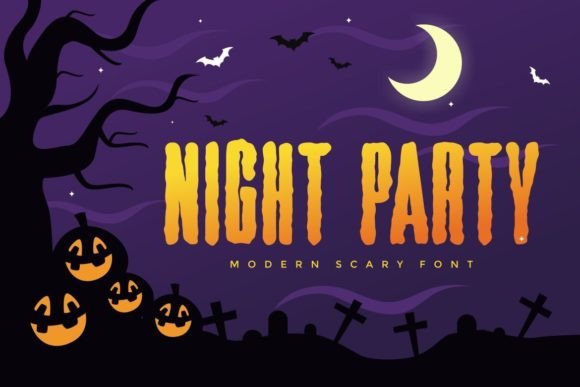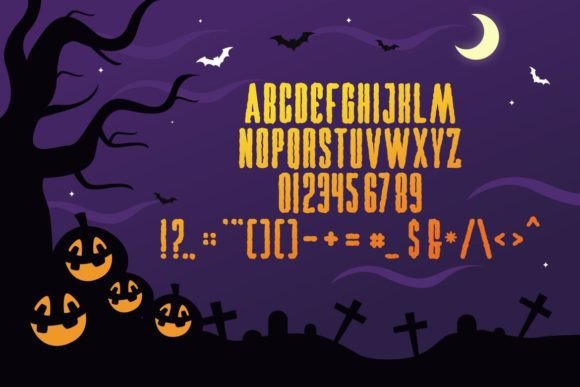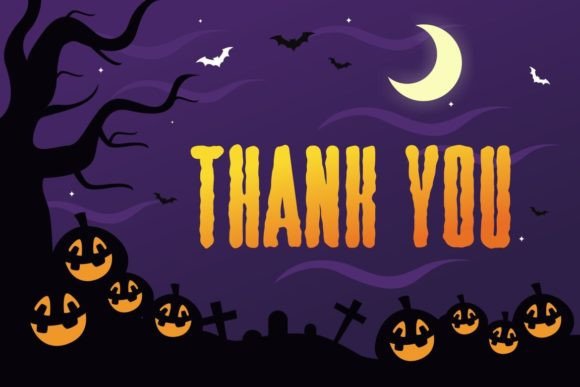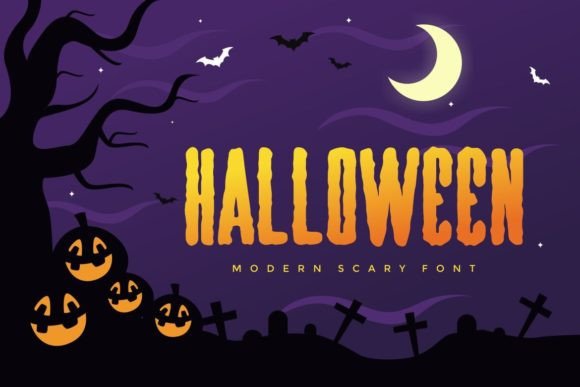
Introduction to Dark Scary Font
As a designer, have you ever found yourself staring at a blank canvas, struggling to bring your creative vision to life? The moment when everything clicks, and your design starts to take shape, is pure magic. For many of us, this ‘aha’ moment is the culmination of hours spent searching for the perfect font to elevate our message. And that’s exactly where the Dark Scary Font comes in – a modern Halloween font that’s sure to cast a spell on your audience.
With its bold, modern display style and playful flair, the Dark Scary Font is the ultimate design resource for creatives looking to add a dynamic touch to their work. Whether you’re working on a high-quality print project or a digital design, this versatile font is readable and adaptable, making it a valuable asset for any designer.
Key Features of Dark Scary Font
- High-quality, bold design perfect for creative projects requiring a dark and scary aesthetic.
- Unique, hand-crafted design elements and glyphs add a touch of eeriness and sophistication to any creative project.
- Perfect for use in horror-themed designs, spooky illustrations, and other creative projects requiring a dark and ominous tone.
Honest Review: Dark Scary Font
I recently had the chance to work with the Dark Scary Font, and I must say it’s a fantastic addition to any design resource. The high-quality design is perfect for adding a touch of eeriness to your creative project.
What works well: ✨ The font’s transparent background makes it easy to customize and blend with any design. The design is also highly versatile, making it suitable for a wide range of projects, from horror-themed graphics to edgy logos.
What doesn’t work well: ⚠️ While the font is free to download, the limited character set might be a drawback for designers who need to work with extensive text.
- Easy to use and customize
Overall, I’m impressed with the Dark Scary Font. It’s a great design resource for any creative project, especially those with a darker or edgier tone. While it has some limitations, the benefits far outweigh the drawbacks.
Common Use Cases for Dark Scary Font
The Dark Scary Font is ideal for horror-themed projects, Halloween decorations, or any other design project that requires a spooky and eerie look. You can also use this font for creating a unique and creative logo or branding for your business.